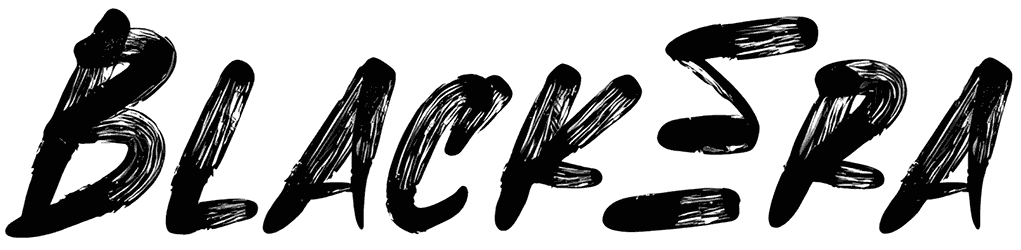
BlackEra Font
Build a hand-drawn area for writs with BlackEra. This brush font has an urban and artistic mood and supports two sets of caps with various delicate details of some letters but there is no lowercase to use. Place it on your contemporary projects such as flyers, foregrounds, album covers, or same that, and be pleased by amusing outcomes.